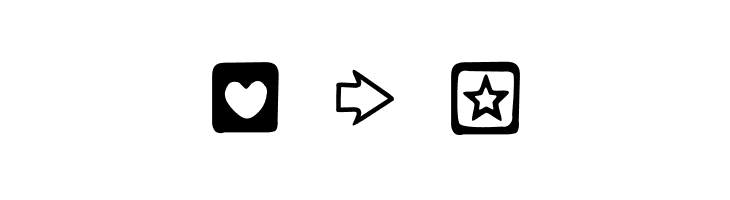
A playful decorative font with bold symbols like stars and hearts enclosed in shapes.
A decorative font with charming symbols like stars and hearts in bold outlines.